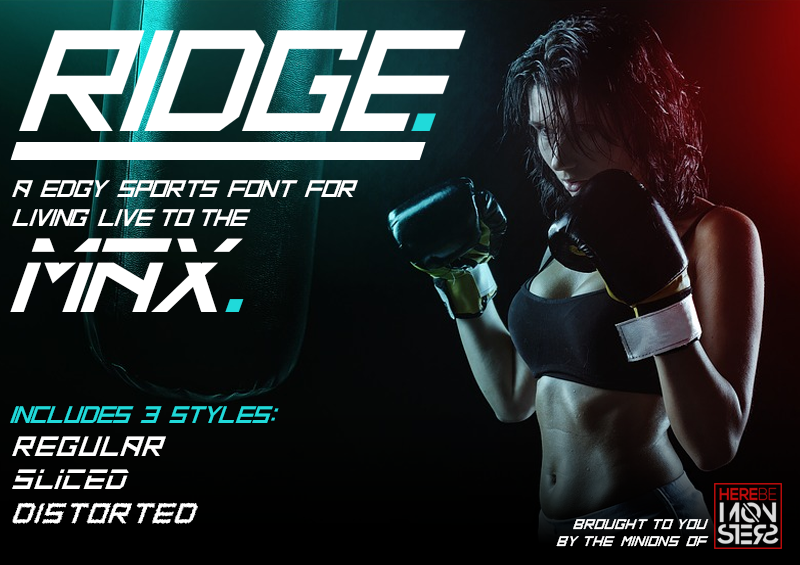
RIDGE is a square, edgy, sporty font family, perfectly suited to gyms, sports events/products and sports lovers alike. It features 3 distinct styles; Regular, Sliced and Distorted so no matter what the challenge is, RIDGE can handle it! FOR PERSONAL USE ONLY. For licensing visit: http://www.monsterswithin.com - Big Minion |